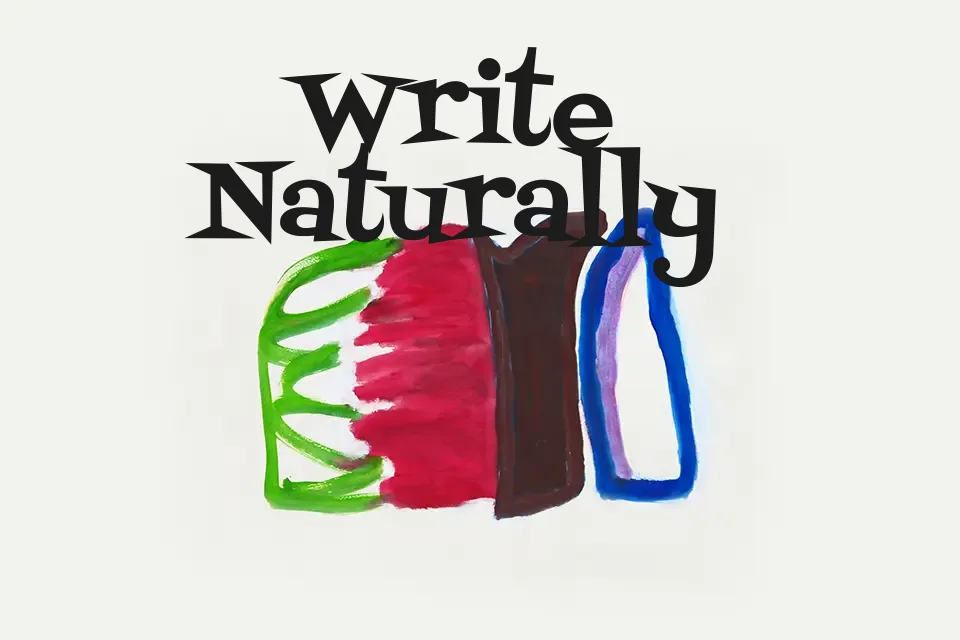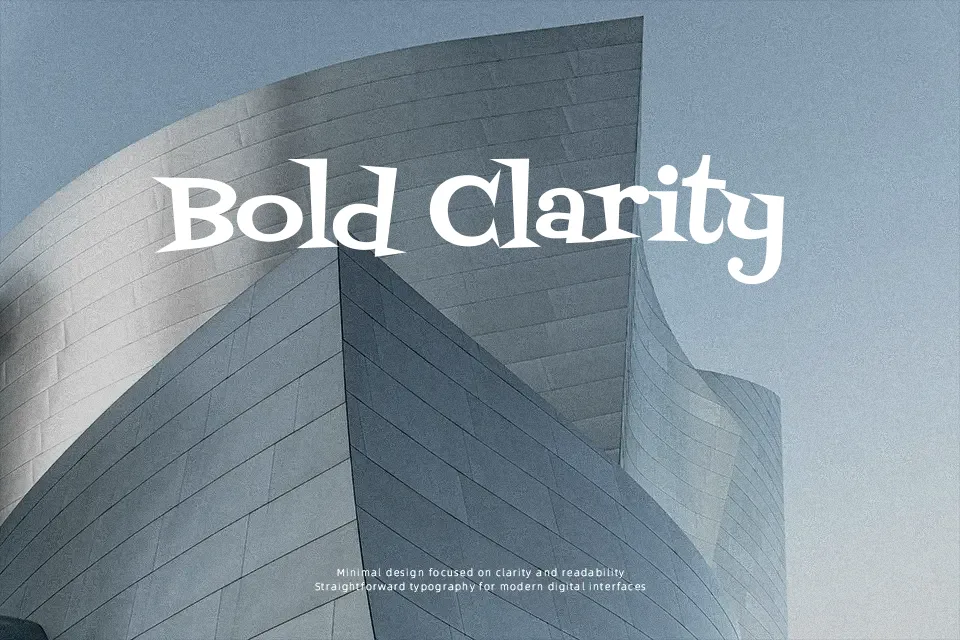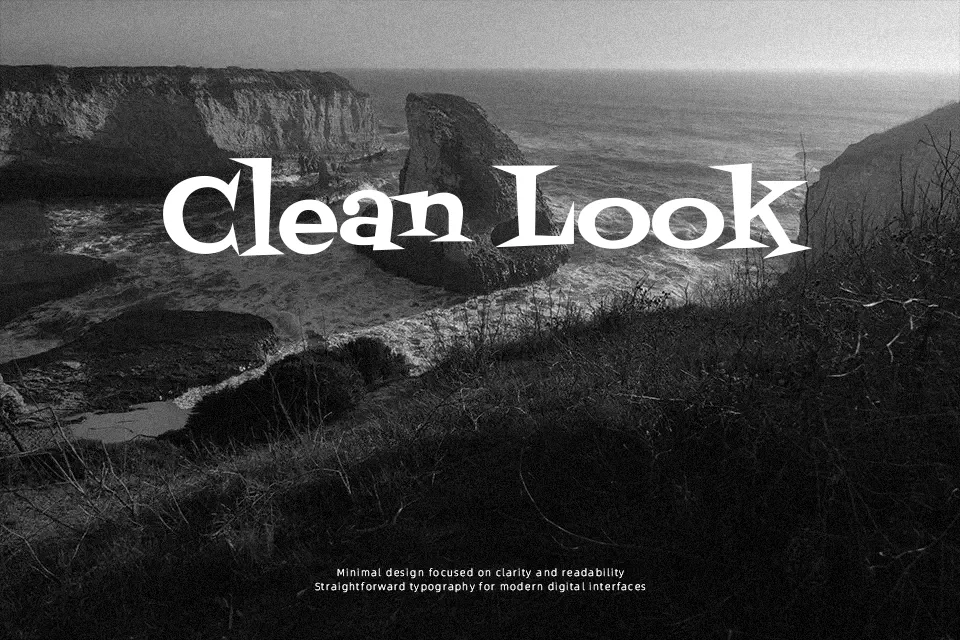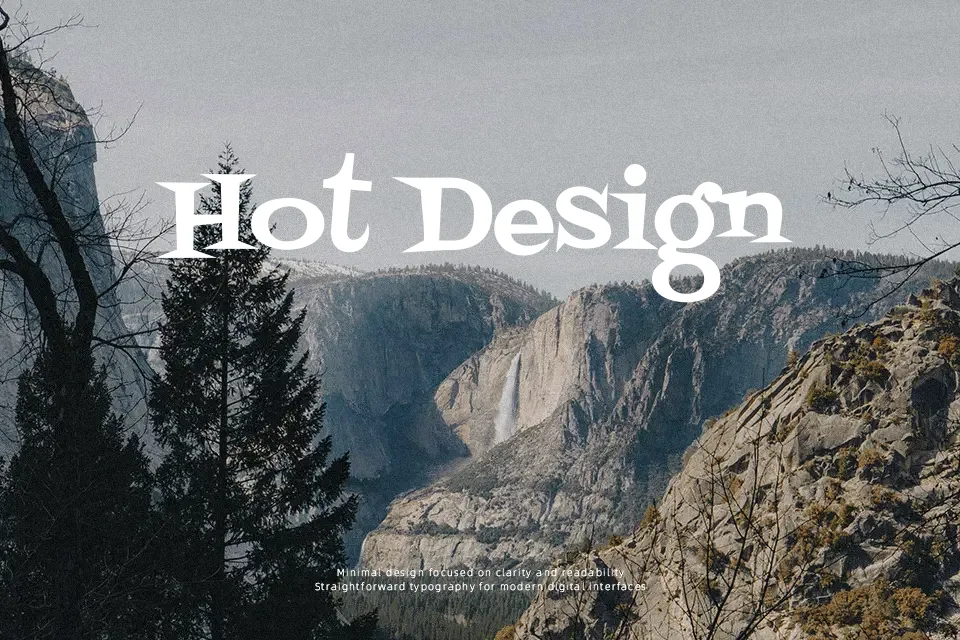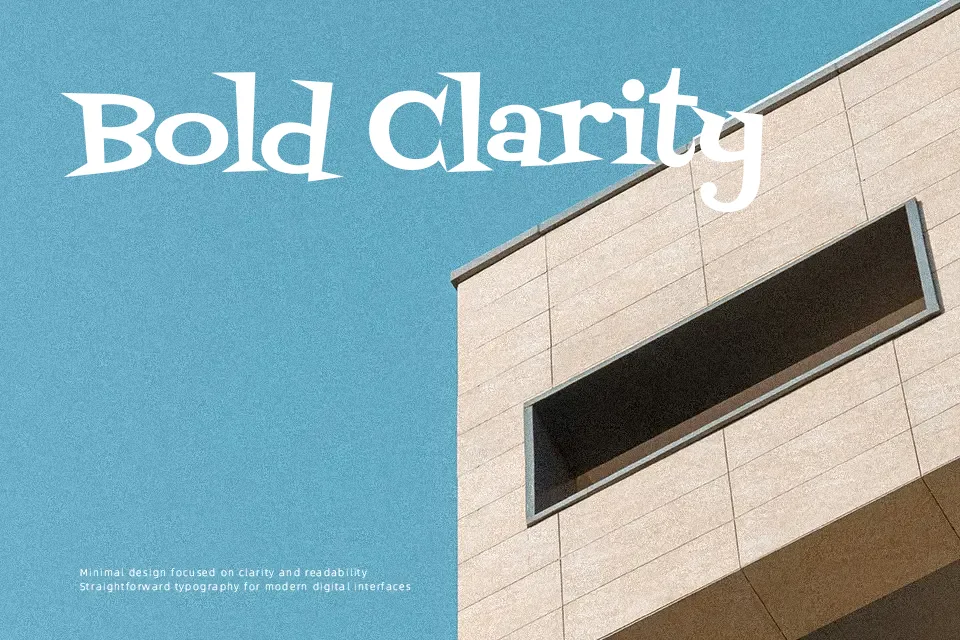
Fontdiner Swanky Font
Fontdiner Swanky leans into a 1950s, Atomic Age flavor with irregular, angular strokes, loose spacing, and a hand-drawn rhythm that keeps every word looking animated. The letters feel tall and slightly wobbly, with pointed terminals and a casual tilt that gives headlines a relaxed, sign‑painter charm rather than a polished corporate voice. It shines in bold, short phrases where you want character first—think roadside diner logos, retro snack packaging, YouTube thumbnails for vintage content, or playful kids’ event posters. Because the shapes are so stylized and spacing is uneven, it can quickly become tiring in long paragraphs or serious editorial layouts, so it works best as accent typography instead of a workhorse text face.
retro logos and wordmarks
diner and restaurant posters
playful headline graphics
long body copy
minimalist UX interfaces
Perfect for branding, kids, and logo, with a creative and decorative style.